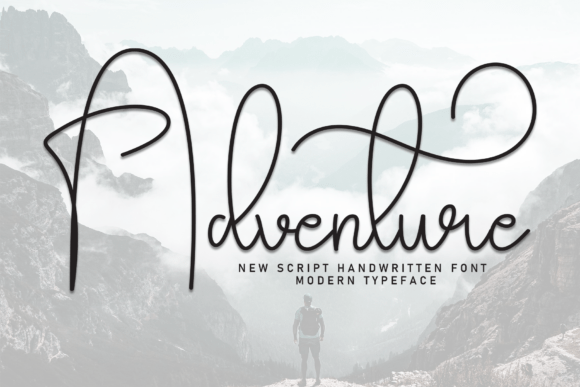
The Perfect Blend of Style and Personality
Have you ever been brainstorming a new design project, surrounded by scribbled notes and scattered ideas, only to find the perfect inspiration in a handwritten note from a loved one? That’s exactly where the magic of handwritten fonts comes in. For designers looking to infuse their work with a touch of personality and whimsy, there’s one font that stands out from the rest.
Introducing the Adventure Font, a stylish handwritten script that seamlessly blends modern elegance with a playful touch. This versatile typeface is perfect for logos, packaging, and invitations, adding warmth, sophistication, and creativity to every project. With its fluid strokes and charming curves, the Adventure Font is a valuable addition to any designer’s toolkit.
Adventure Font Key Features
- Font Family: Offers a range of adventurous font styles, including serif, sans-serif, and script fonts.
- Unique Characteristics: Features a unique blend of hand-drawn and digital elements, giving it a distinct, adventurous feel.
Adventure Font Review
Overall, I think the Adventure Font has some great qualities, but it also has its limitations. Let’s dive in and see what works well and what doesn’t.
- The font has a unique and adventurous feel to it, perfect for projects that need a sense of excitement and energy.
- The font is highly customizable, allowing you to adjust the size, color, and even the spacing between letters.
- The font family includes a wide range of styles, from bold and condensed to light and scripty.
- The font can be a bit too playful and childish for more serious or professional projects.
- The font family is not as comprehensive as some other font families, with fewer weights and styles available.
- The font can be difficult to read at small sizes, especially in digital formats.
I think the Adventure Font is a great choice for projects that need a fun and adventurous vibe, but it may not be the best fit for more serious or professional projects. With a little creativity and customization, this font can really shine and add some excitement to your design.
Use Adventure Font to create a sense of excitement and energy in your designs. Experiment with different font sizes and colors to create visual hierarchy and emphasis. Combine Adventure Font with other fonts to create a unique and eye-catching look.
Adventure Font is ideal for use in travel and adventure-themed designs, such as travel brochures, posters, and social media graphics. It’s also great for use in motivational and inspirational designs, such as quotes and motivational posters.
Playfair Display is a luxurious and elegant serif font, perfect for creating a sense of sophistication and refinement. It’s ideal for use in high-end branding, advertising, and editorial design. Compared to Adventure Font, Playfair Display has a more refined and polished look, making it suitable for formal and upscale designs.
Great Vibes is a modern and stylish script font, great for adding a touch of personality and whimsy to designs. It’s perfect for use in creative and artistic projects, such as advertising, packaging, and social media graphics. Compared to Adventure Font, Great Vibes has a more relaxed and casual feel, making it suitable for designs that require a friendly and approachable tone.
Carolyna Pro is a modern and elegant sans-serif font, perfect for creating a sense of sophistication and professionalism. It’s ideal for use in corporate branding, web design, and editorial design. Compared to Adventure Font, Carolyna Pro has a more minimalist and modern look, making it suitable for designs that require a clean and simple aesthetic.
Does Adventure Font support Unicode characters?
Yes, Adventure Font supports a wide range of Unicode characters, including Latin, Greek, Cyrillic, and many other scripts. This makes it a great choice for designing content that requires support for multiple languages.
What is the recommended line height for Adventure Font?
The recommended line height for Adventure Font is 1.2 to 1.5 times the font size. This will help to ensure that the text is highly legible and easy to read. You can adjust the line height to suit your specific design needs.